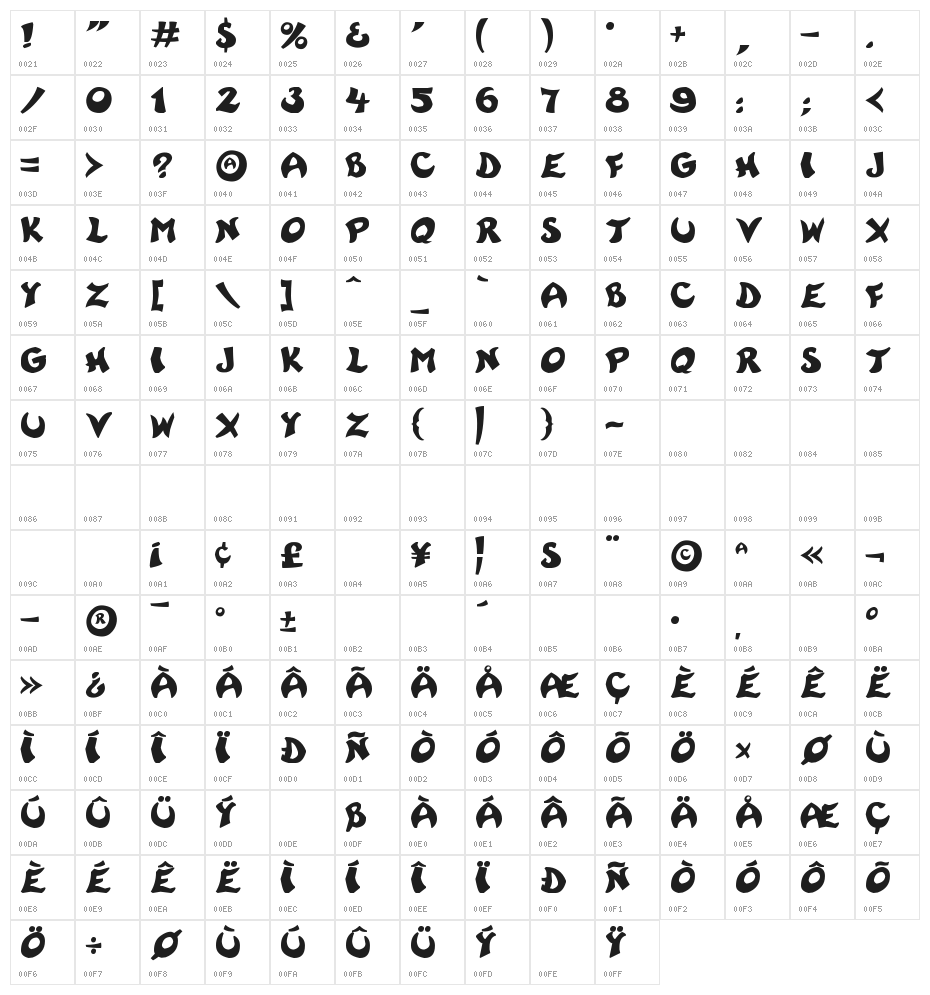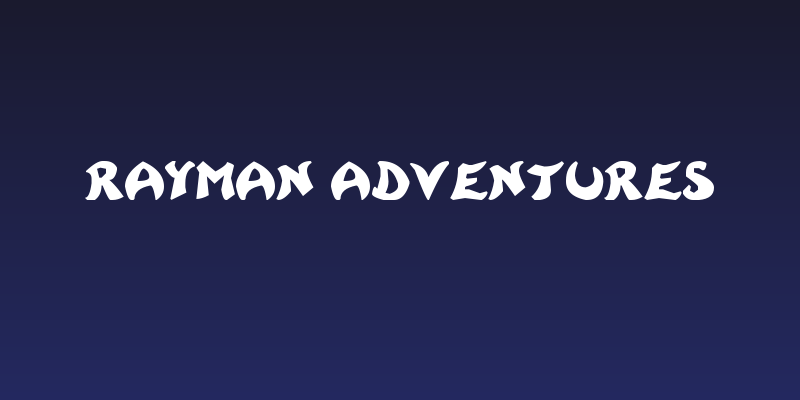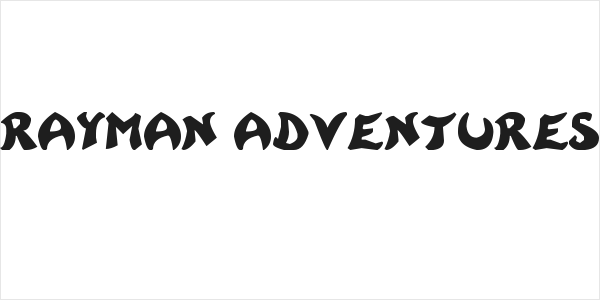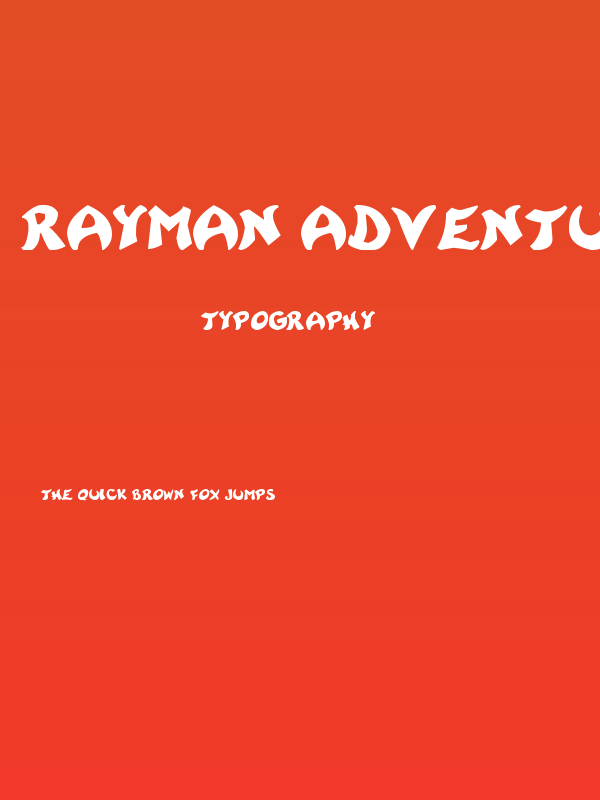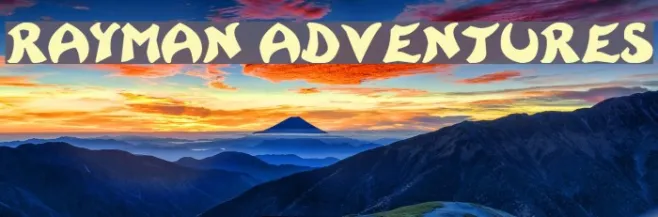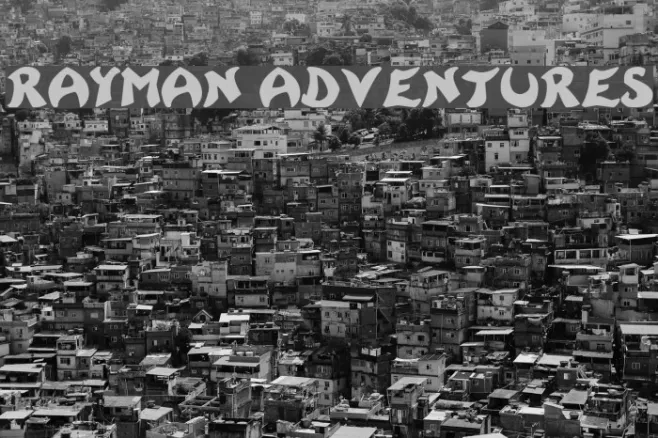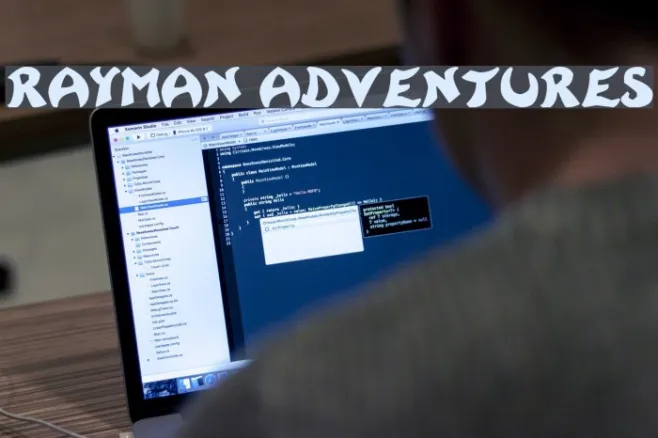
Rayman Adventures Font
Rayman Adventures Description
This font exhibits a playful and dynamic style, characterized by its bold, irregular strokes and whimsical curves. The letters have a hand-drawn appearance, with varying thickness that adds a sense of movement and energy. The uppercase and lowercase letters maintain a consistent style, while the numbers and special characters complement the overall design. The font's unique aesthetic makes it stand out, offering a creative and fun vibe suitable for various design projects.
| Proposed Projects | Ideal for children's book covers, video game titles, posters, and playful branding. |